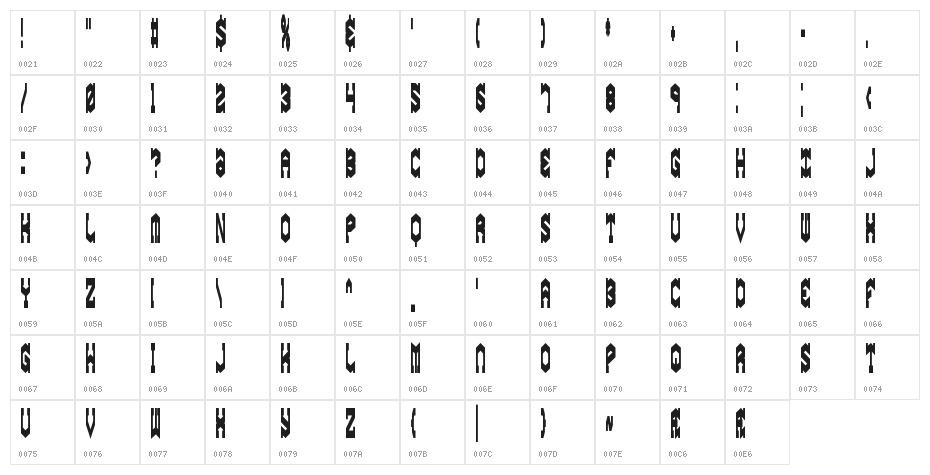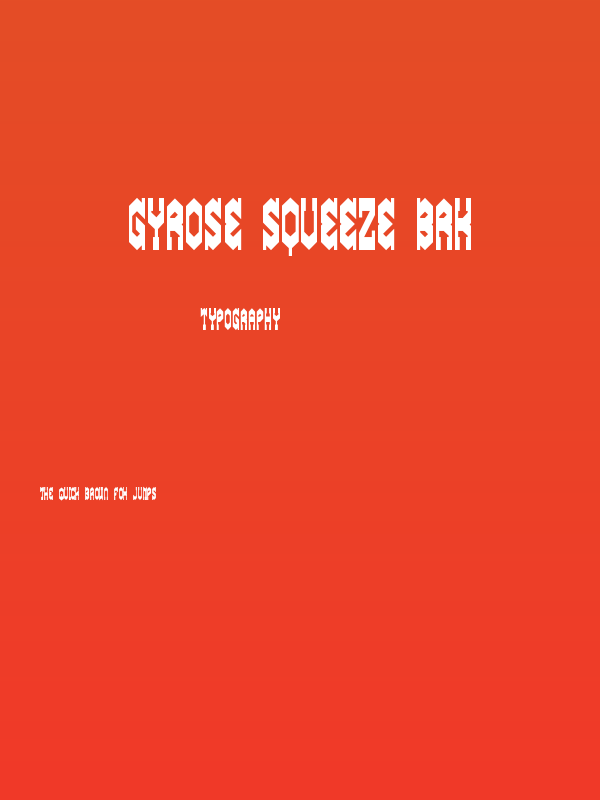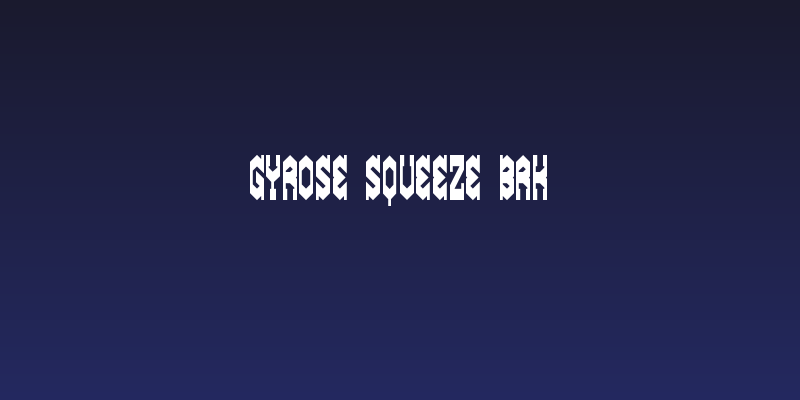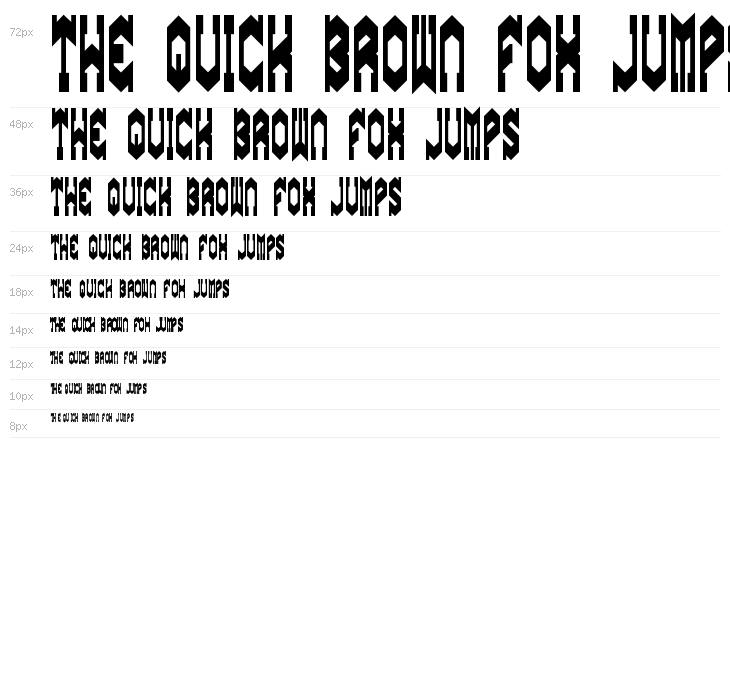
Gyrose Squeeze BRK Font
Gyrose Squeeze BRK Description
This font features a bold and geometric design with sharp, angular edges and a distinct, futuristic appearance. The characters are constructed with a combination of straight lines and pointed angles, creating a dynamic and eye-catching effect. The uppercase and lowercase letters maintain a consistent style, emphasizing a strong visual impact. The numbers and special characters follow the same design principles, ensuring uniformity across the font. This font is ideal for projects that require a modern and edgy aesthetic, making it suitable for headlines, posters, and branding materials.
Proposed ProjectsIdeal for modern branding, edgy posters, and eye-catching headlines.